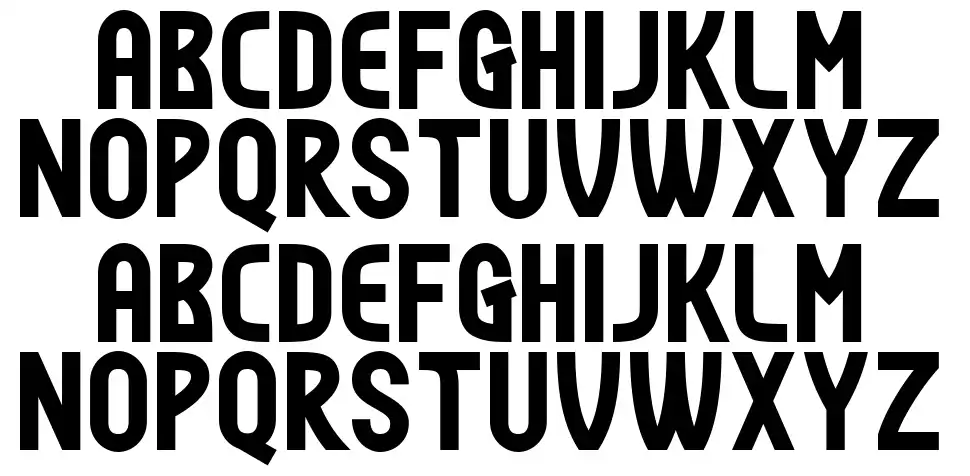
Todays Font By Kong Font Fontriver Looking for todays font designed by kong font? click here to create a custom image with your own text. download font free at fontriver. Todays à € by kong font in basic > sans serif 11,912 downloads (1 yesterday) free for personal use 4 font files download donate to author.
Todays Font By Kong Font Fontriver Todays font is a nice sans serif typeface designed by kong font. this font is copyrighted and protected by the law. usage of this font on any work without proper license is deemed as illegal. you might get fined for at least usd 3000 for this act. please do understand that we have our own system for tracking the usage of our works on internet. Free download of todays font family with 2 styles. released in 2021 by fontkong and licensed for personal use only. click now to create a custom image with your own words that you can download. Todays is a free font for personal use created by kong font. todays is a sans serif type font that can be used on any device such as pc, mac, linux, ios and android. this font has 2 styles available ( todays regular todays bold). this font is copyrighted and protected by the law. Todays introducing the latest creation from the talented font designer, kong font version 1.00! this font is a true masterpiece, carefully crafted with download free family.
Kong Font Fontmagic Todays is a free font for personal use created by kong font. todays is a sans serif type font that can be used on any device such as pc, mac, linux, ios and android. this font has 2 styles available ( todays regular todays bold). this font is copyrighted and protected by the law. Todays introducing the latest creation from the talented font designer, kong font version 1.00! this font is a true masterpiece, carefully crafted with download free family. Download todays font for windows and mac. todays font was designed by font kong and has been downloaded 1,629 times. Download free font todays by kong font from category sans serif. This font features a bold, geometric sans serif style with clean lines and a modern appearance. the characters are uniform in width, providing a balanced and structured look. Looking for fonts designed by kong font? download it free at fontriver without registration.
Kong Font Free Font Download todays font for windows and mac. todays font was designed by font kong and has been downloaded 1,629 times. Download free font todays by kong font from category sans serif. This font features a bold, geometric sans serif style with clean lines and a modern appearance. the characters are uniform in width, providing a balanced and structured look. Looking for fonts designed by kong font? download it free at fontriver without registration.